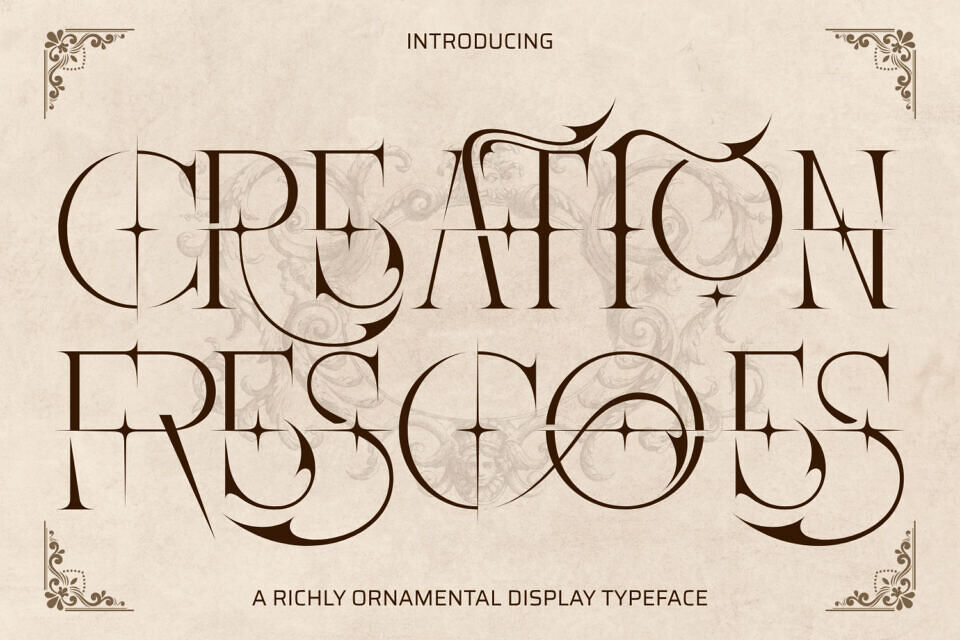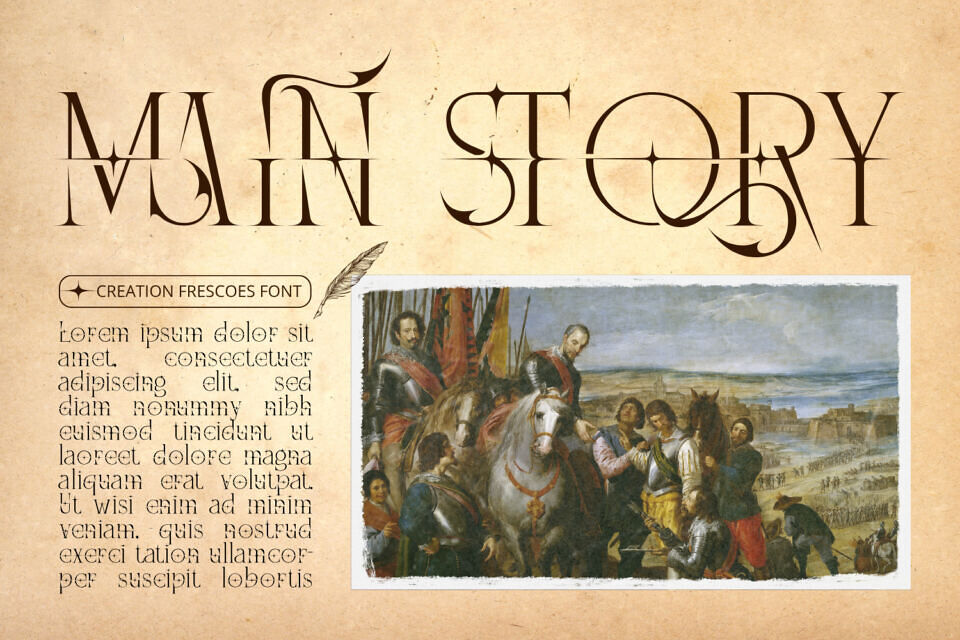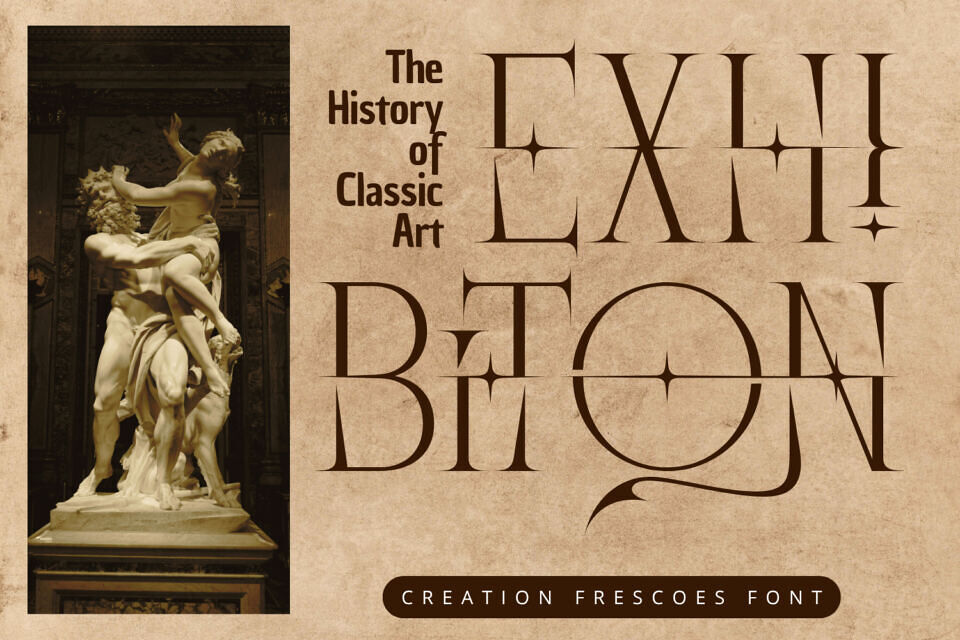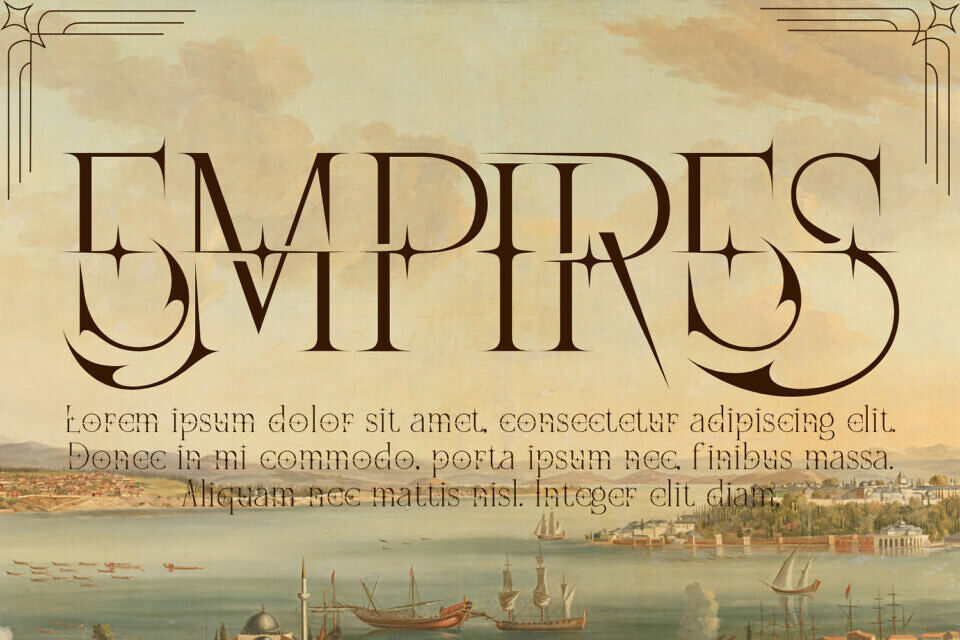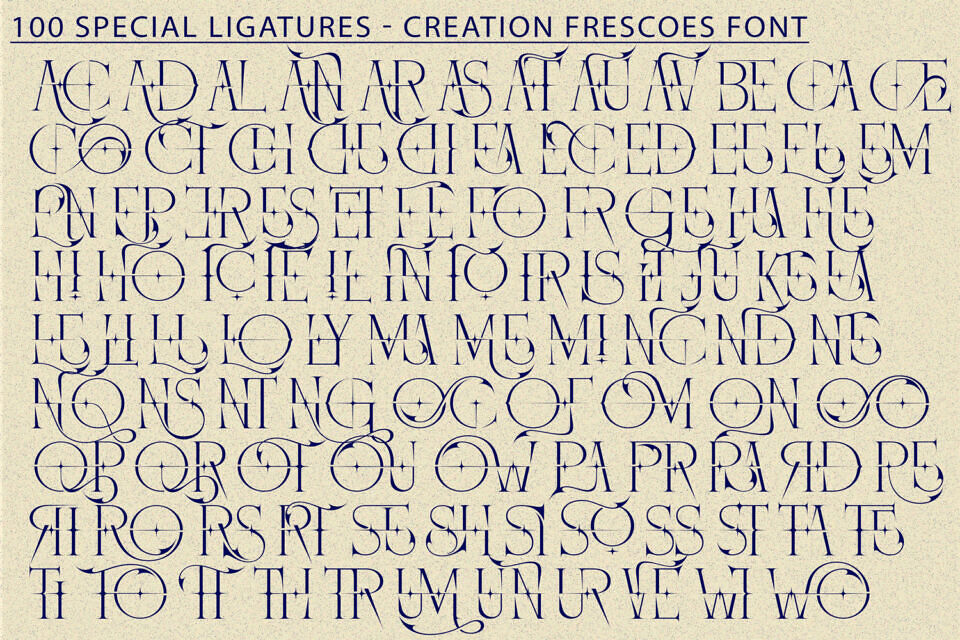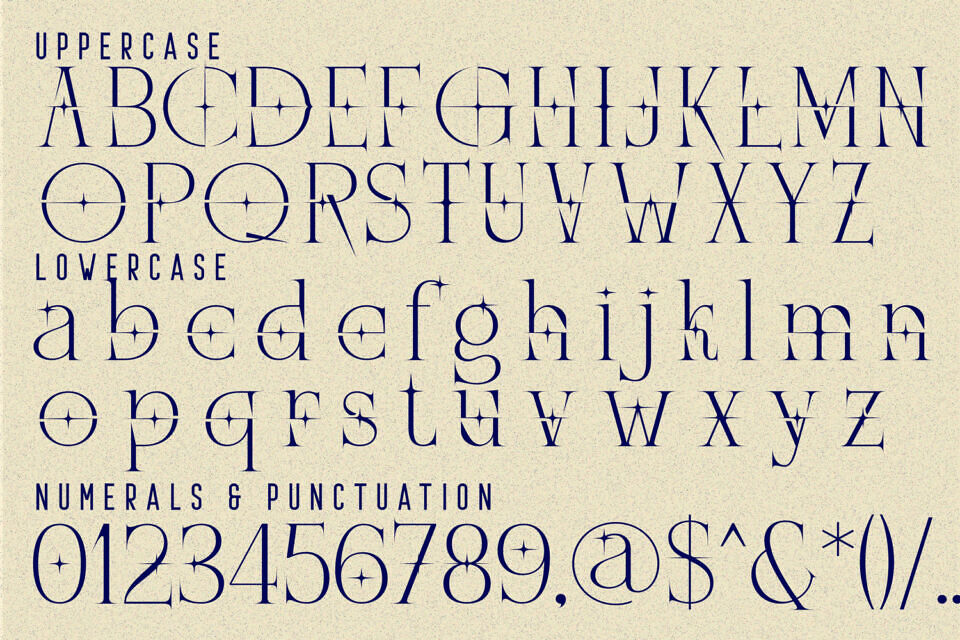
Creation Frescoes is a luxurious Decorative Serif Display Font inspired by Renaissance artistry and Gothic aesthetics. Its elegant balance of sharp serifs and flowing curves creates a timeless visual experience — perfect for designers who want to express sophistication and artistic flair.
This font combines ornamental beauty with strong structure, making it ideal for logos, editorial titles, posters, or any design seeking a vintage yet refined atmosphere.